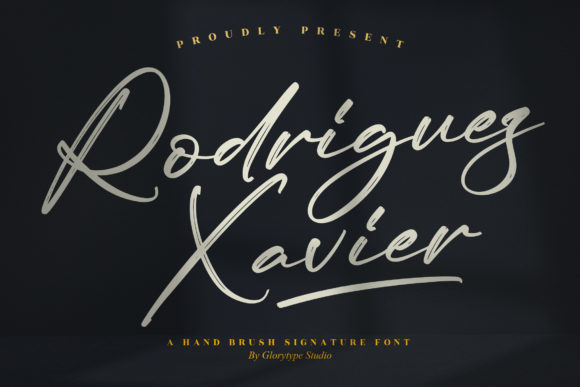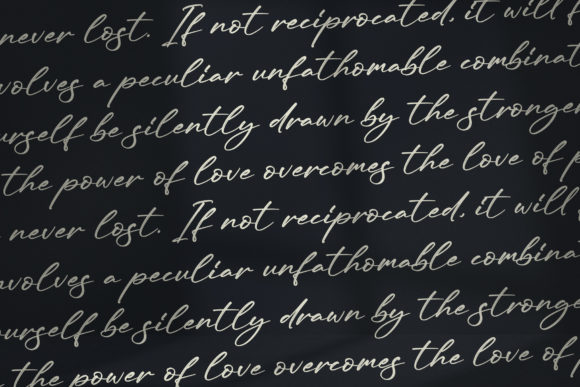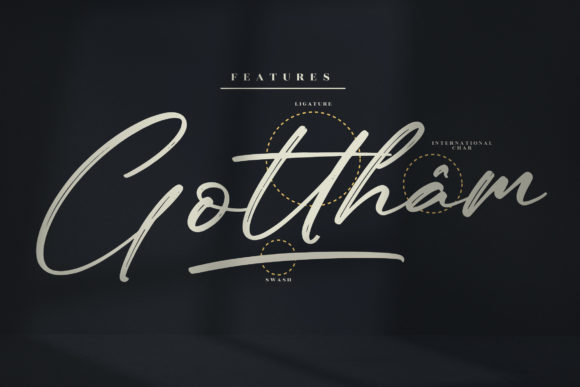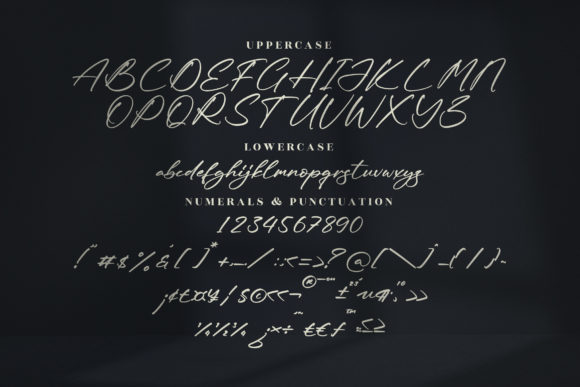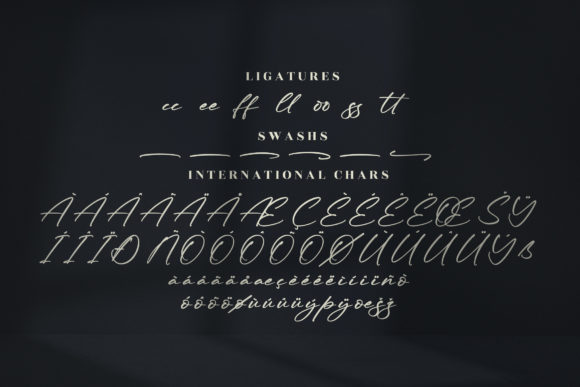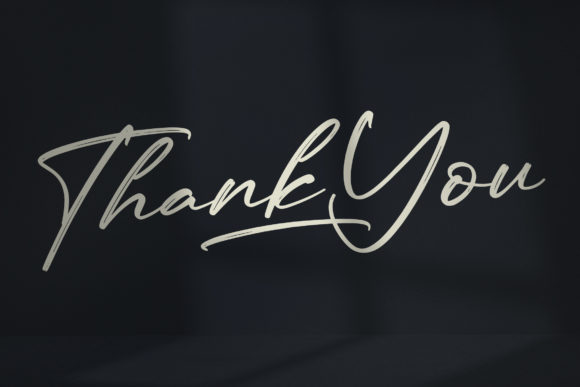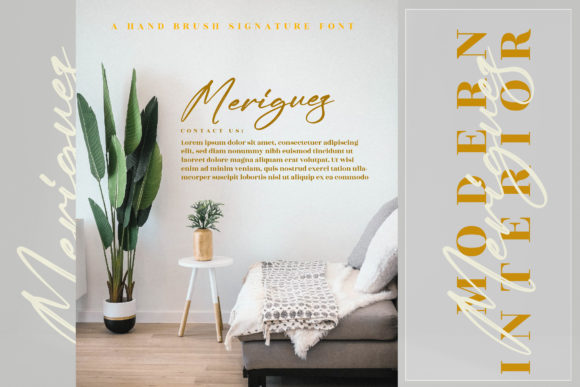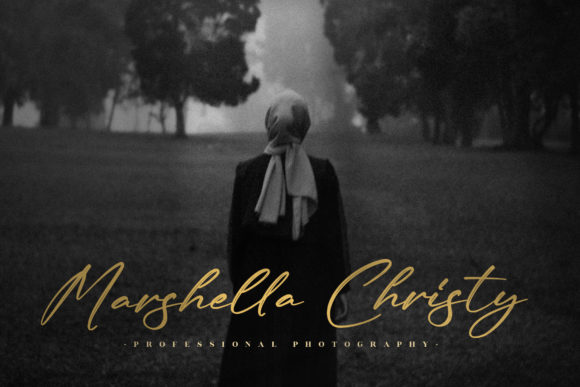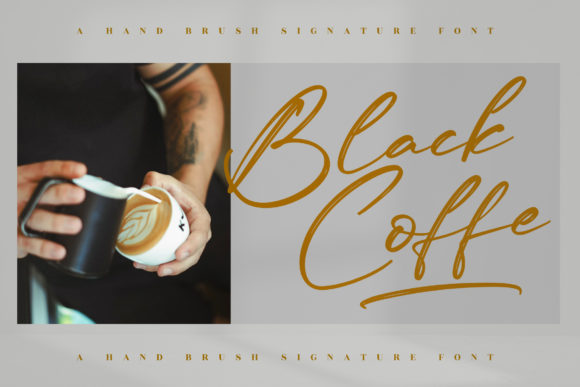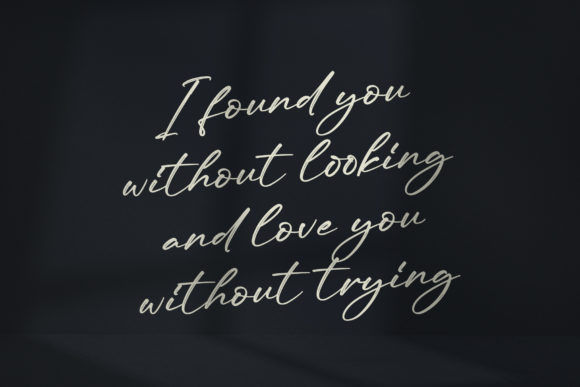
Rodriguez Xavier Font
About Rodriguez Xavier Font
Rodriguez Xavier is an elegant font crafted to suit a broad spectrum of projects, ranging from urban designs to sophisticated branding. This typeface skillfully captures the essence of traditional hand-written wall letterings, lending a unique and authentic touch to your designs.
The versatility of Rodriguez Xavier makes it a valuable asset for various applications. Whether you’re working on urban-themed projects or aiming for a more refined and sophisticated branding approach, this font seamlessly adapts to different design contexts.
One notable feature of Rodriguez Xavier is its PUA encoding. This means that designers have easy access to a rich collection of amazing glyphs and ligatures, enhancing the font’s usability and allowing for creative exploration.
In summary, Rodriguez Xavier stands as more than just a font; it’s a design element that bridges the gap between urban aesthetics and sophisticated branding. Its elegant appeal, coupled with PUA encoding for convenient access to unique glyphs, makes Rodriguez Xavier an excellent choice for designers seeking a versatile and authentic typeface for their diverse projects.